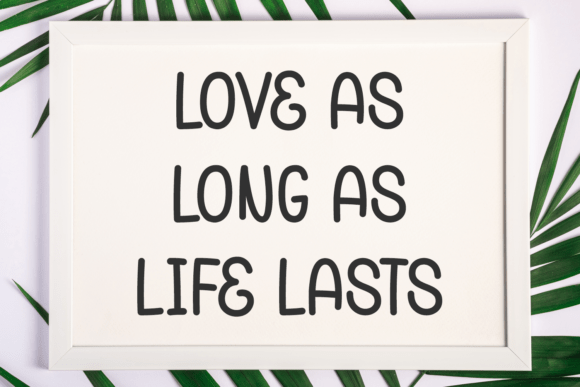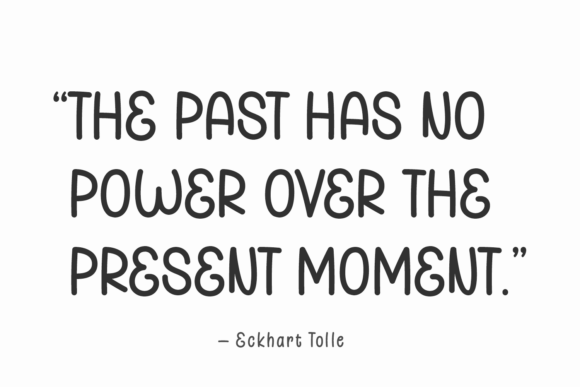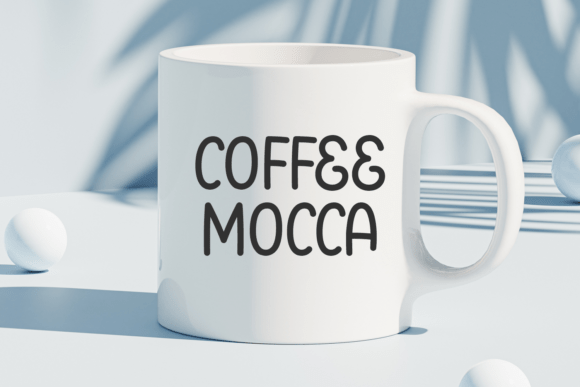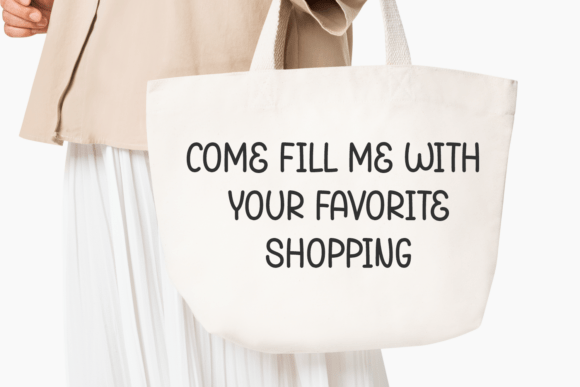
Introduction to Foreignness Font
Introducing the Foreignness Cute , an exquisite collection of carefully crafted handwriting fonts, perfect for digital planning and journaling.
Enrich your creativity with these modern handwritten fonts, ideal for both Procreate and Canva, offering an aesthetically pleasing touch to your Good notes projects Perfect for scrapbooking enthusiasts, this collection includes distinctive OTF and TTF fonts, designed to bring a touch of elegance to your digital note-taking experience.